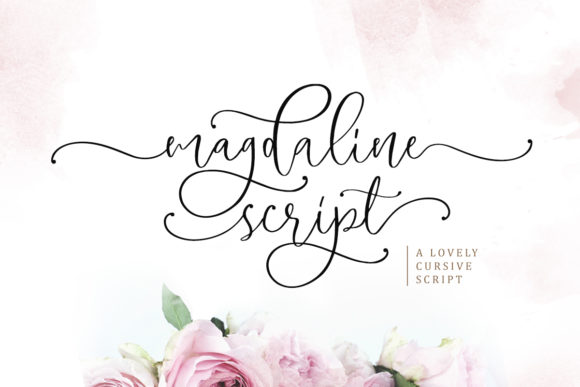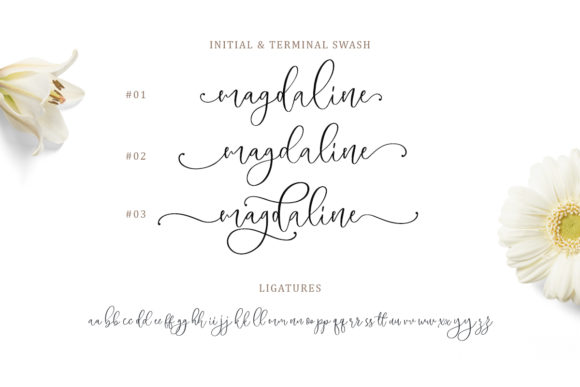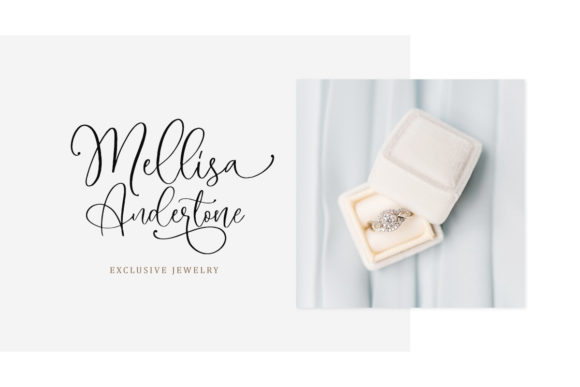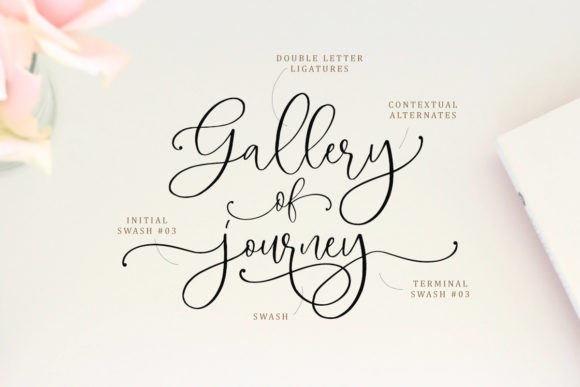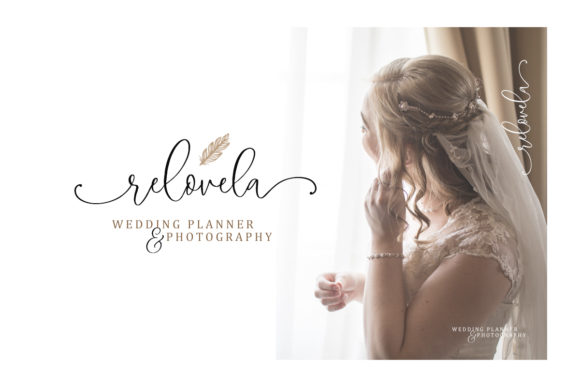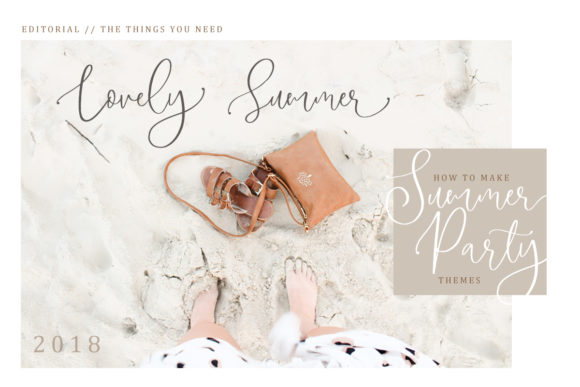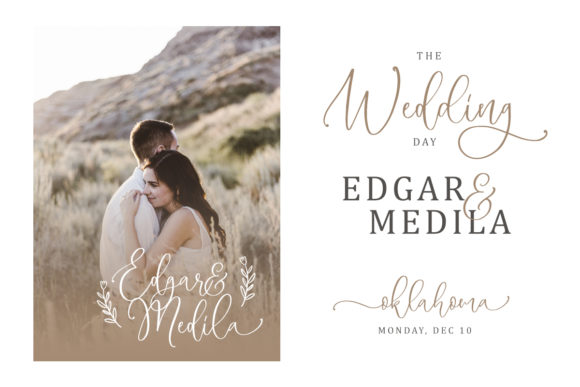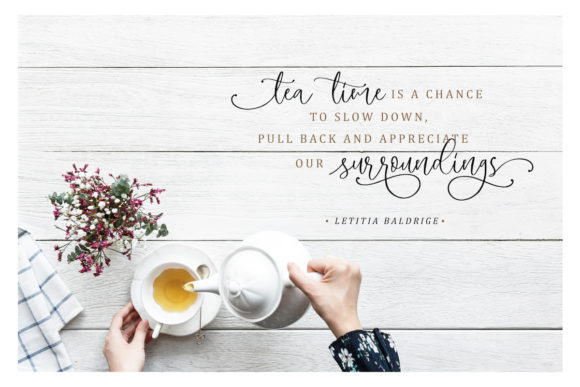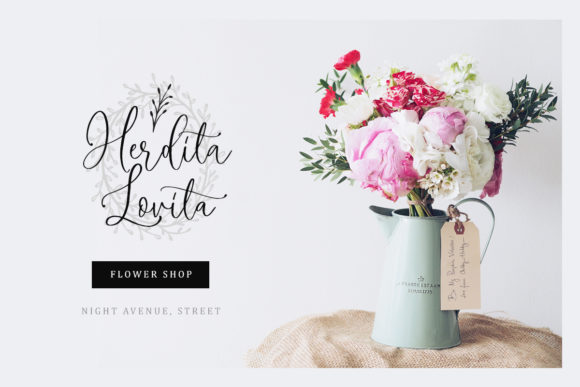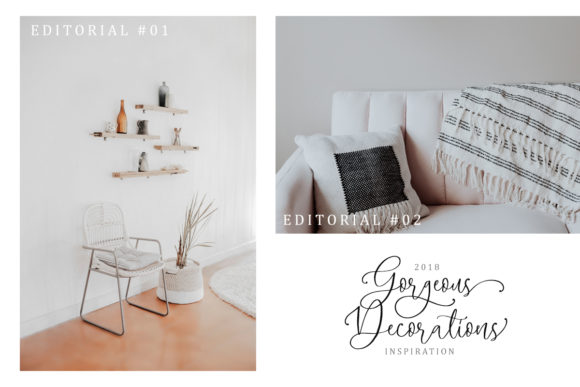
Magdaline Font
About Magdaline Font
The Magdaline is a lovely modern calligraphy font. It includes amazing swashes which will give your design a luxurious touch.